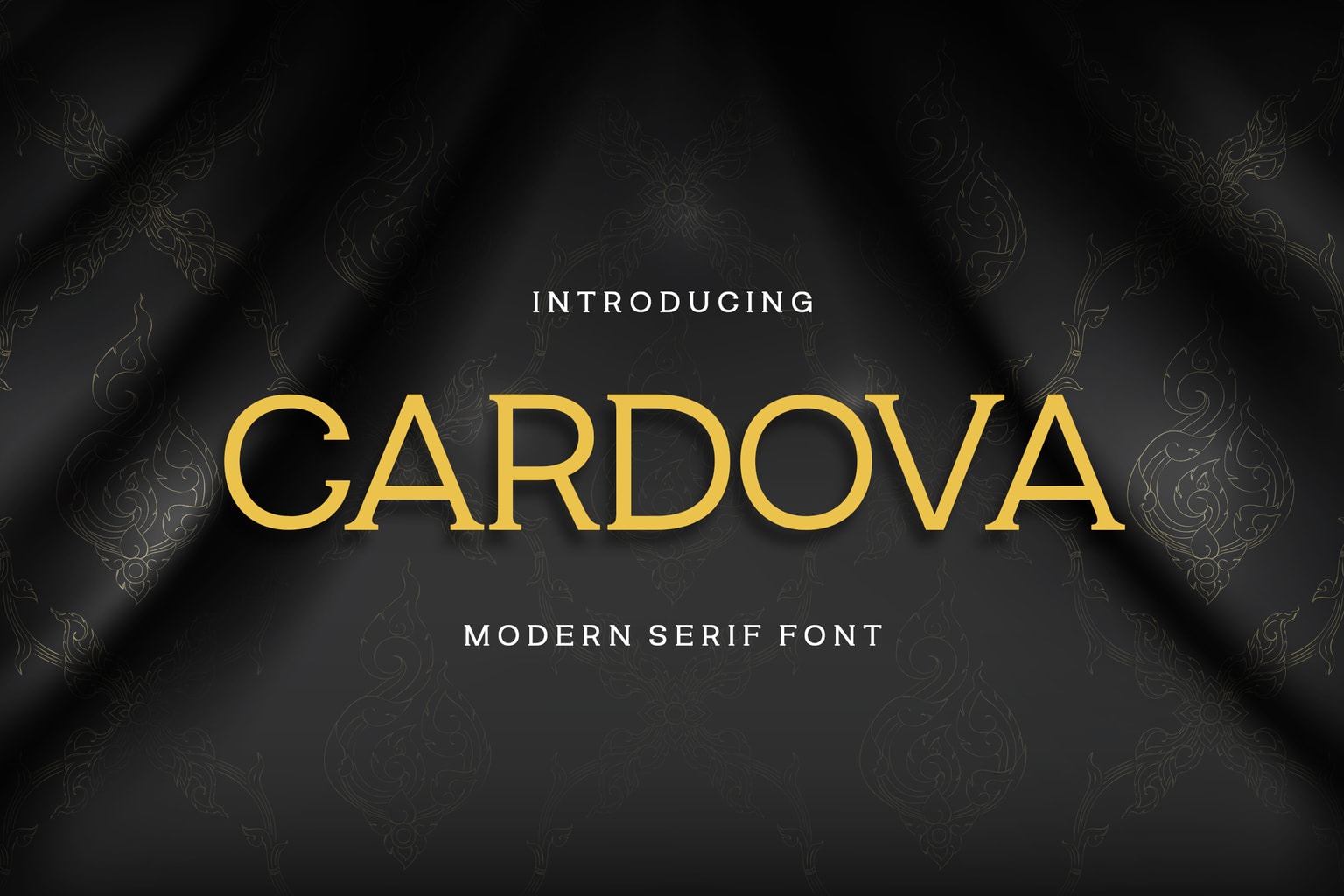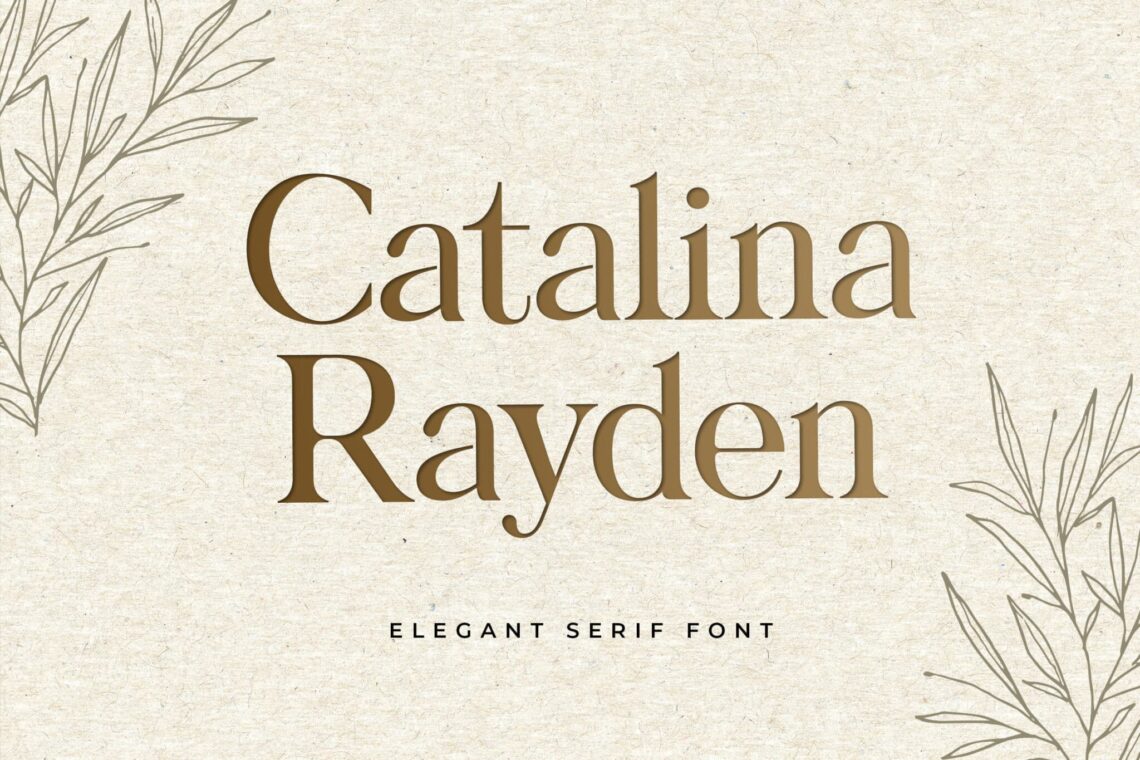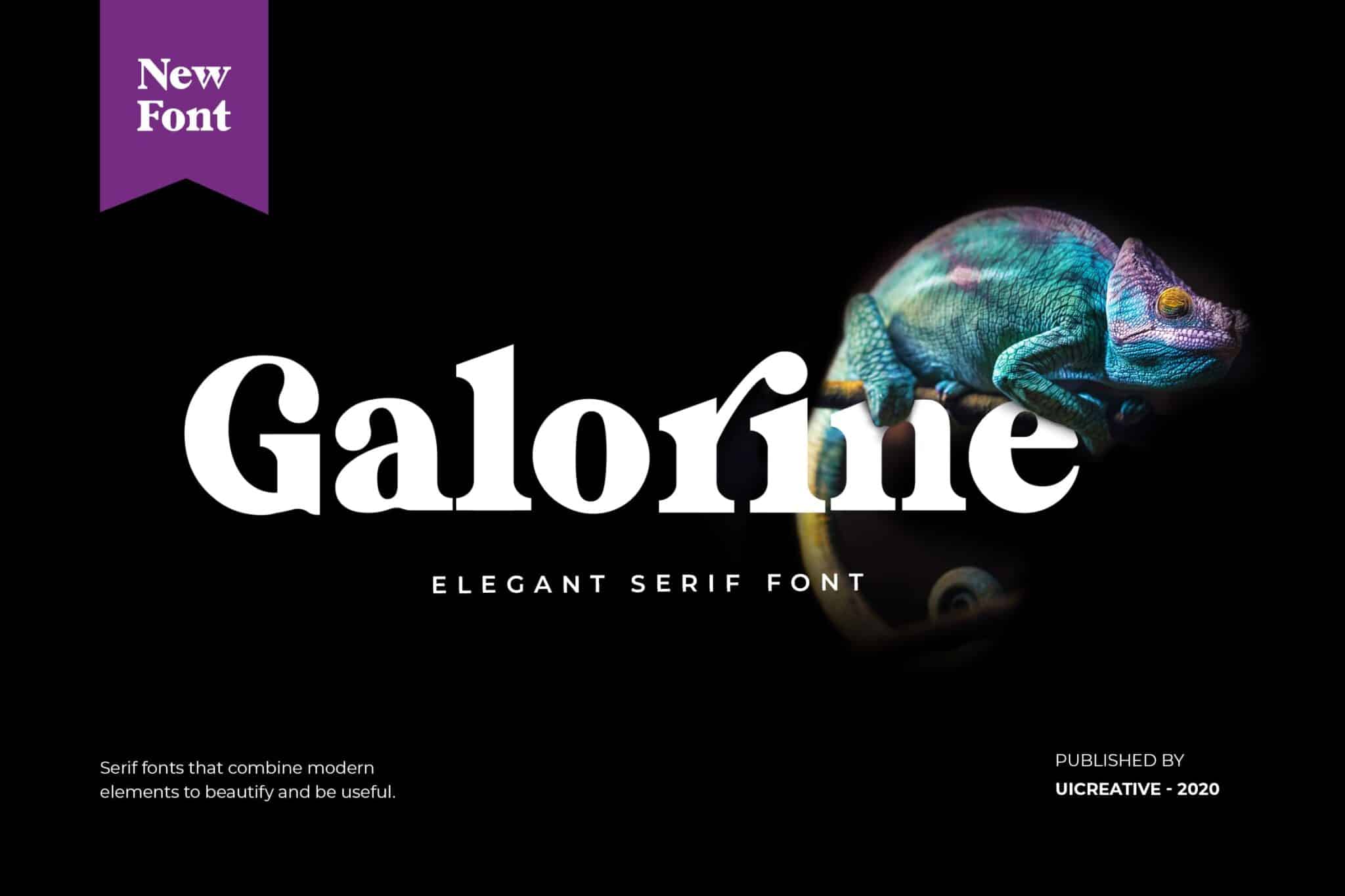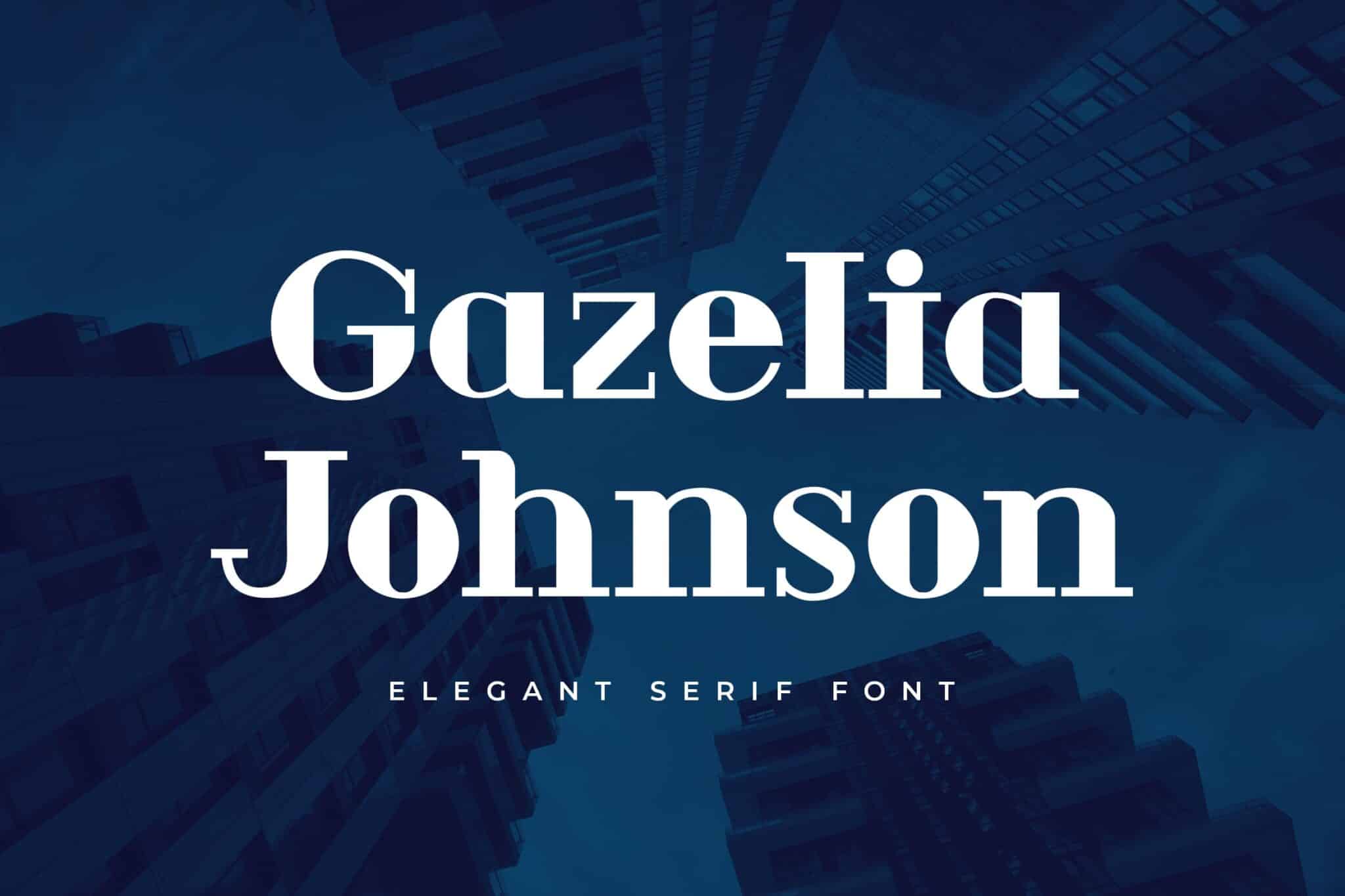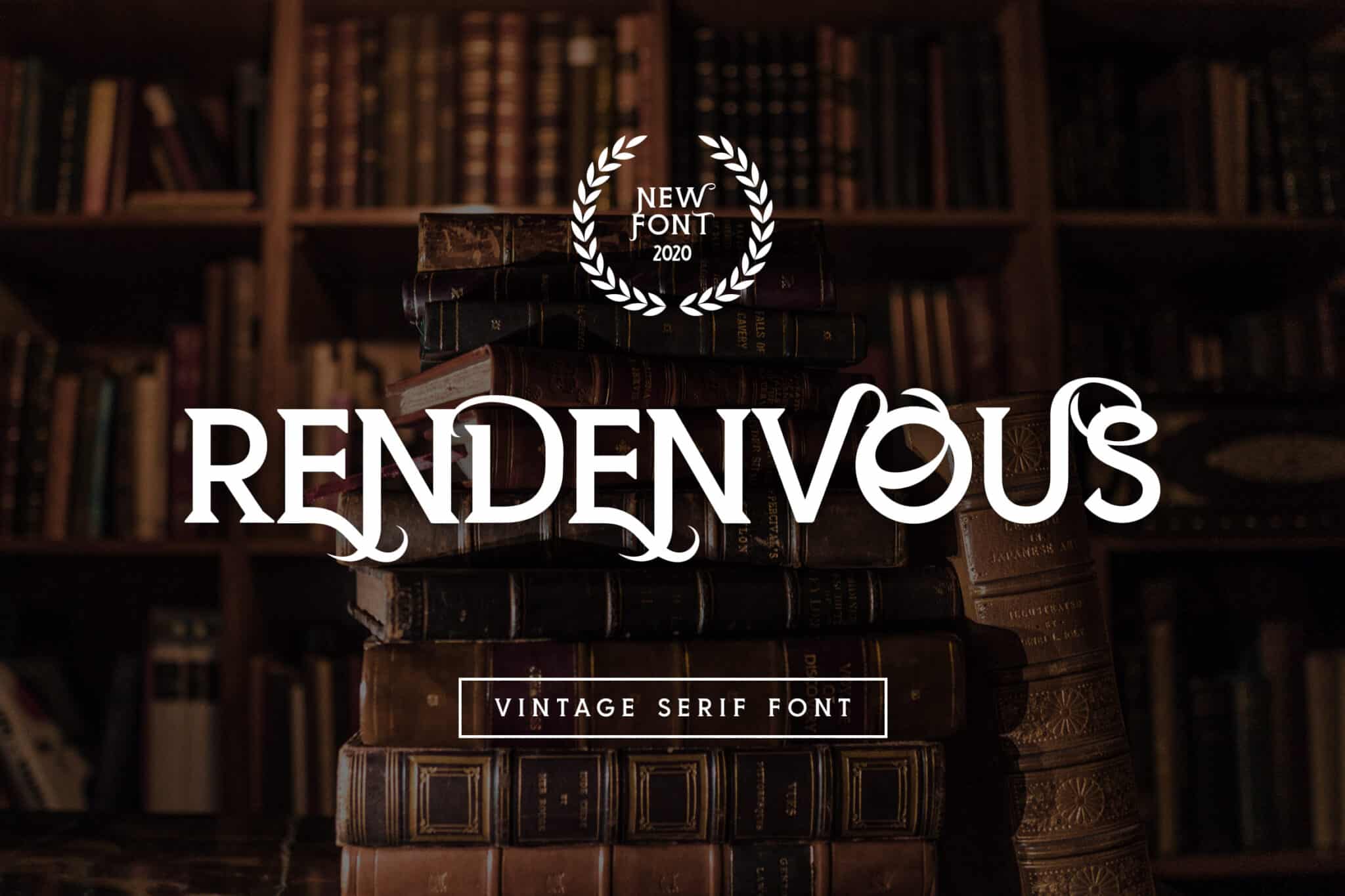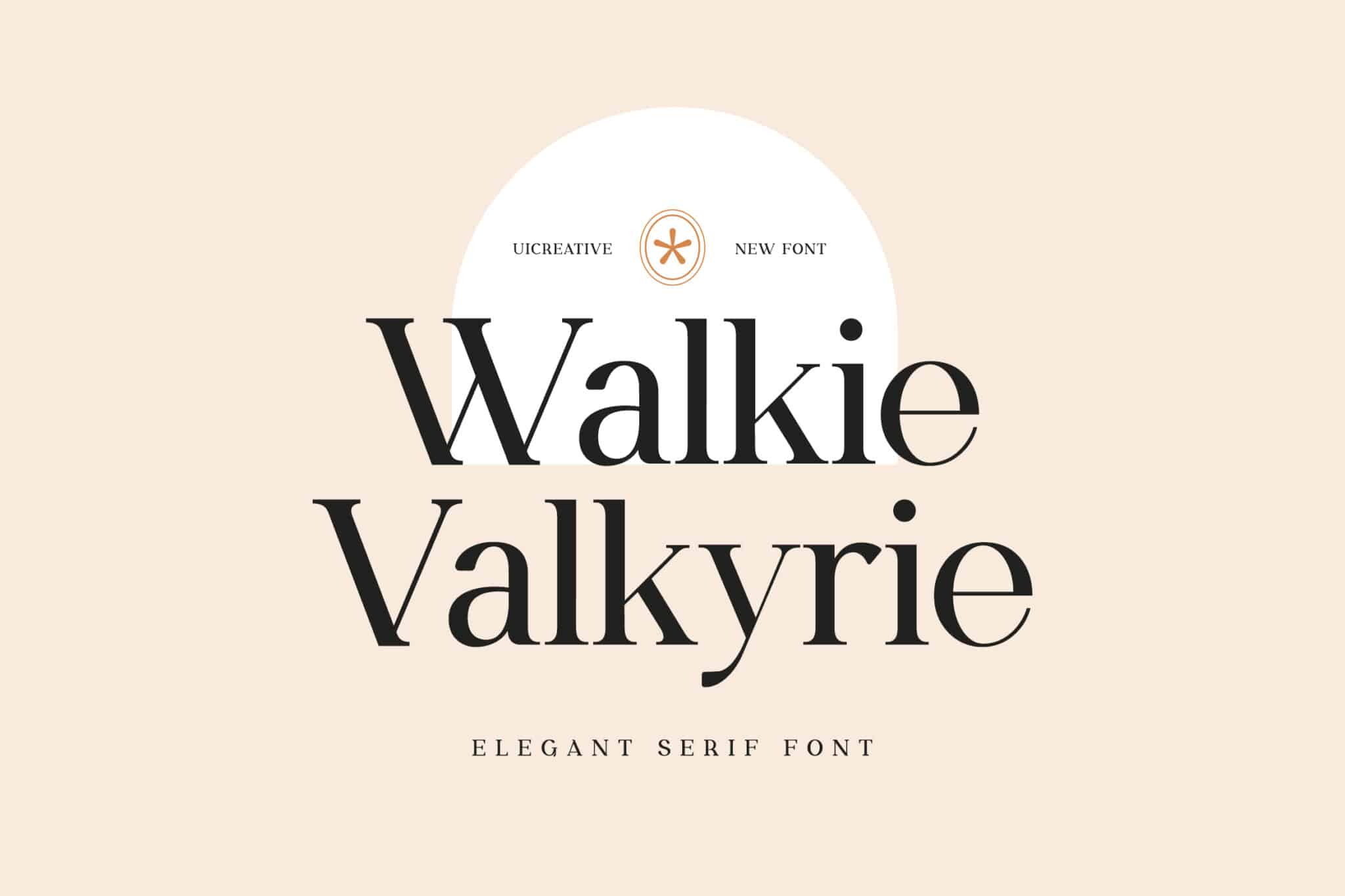
10 Best Modern Serif Font For You
It is time to investigate a selection of the most elegant and modern serif font available. The use of serif typefaces is recommended for printed books, complex typography, and the creation of a more official appearance. These popular serif fonts stand out from the rest of the pack.
We have compiled collections of the top modern serif font so that you may get started using them in your work right away. You’ll be astounded by how much of a difference they may make to your design job when contrasted to the more generic system fonts that are employed far too frequently.
10 Modern Serif Font Examples
If you have a question about what is a modern san serif font, after you look at these examples, you will know the answer! Here are our 10 collections of modern serif font you can use:
1. Lemonida Modern Serif Font
The sophisticated appearance of the Lemonida font family, which belongs to the modern serif font category, helps it stand out from the crowd. Thanks to the close spacing between the characters and the different weight options, you can utilize this font bundle to create a wide variety of unique print and digital designs.
2. Royal Augustine Serif Font
This modern serif font is perfect for creating high-end fashion and luxury brand logos due to its classic and understated style. Typical alphabetic and non-alphabetic characters, as well as punctuation marks, are all there.
3. Marfanco Serif Display Font
It is highly recommended that you look into the Marfanco Serif Display Font if you search for a contemporary design reminiscent of the past. It is a modern serif font with an industrial look, and using it will help your work stand out and establish you as a competent designer in the eyes of your coworkers and clients.
4. Catalina Rayden Serif Display Font
This is an excellent font for you if you seek a versatile serif font that you can use to produce anything from inventive logos to exquisite business cards. If you are looking for a font like this, you are in the right place. The Catalina Rayden Serif Display Font is a modern serif font that has been designed to have a look that is both sleek and attractive.
5. Galorine Serif Font
Make imaginative heads and titles for your projects with the help of this beautiful modern serif type font that is both thick and bold. It lends itself particularly well to creating header titles for websites, poster titles, and even contemporary logos.
6. Walkie Valkyrie Serif Font Family
This classy modern serif font family, namely Walkie Valkyrie Serif, features attractive letters that have been cleanly carved. It is ideal for creating packaging designs for high-end items and premium businesses. In addition, for use in business logos and badges, social media posts, website headers, and many other applications.
7. Rendenvous Serif Display Font
Yet another modern serif font, Rendenvous Serif Display Font, was designed for use in premium branding projects. This versatile font can benefit from logos, business cards, letterhead, and more.
8. Gazelia Johnson Serif Display Font
The character style of this display font exudes a certain degree of professionalism. It is consistent with the typeface’s name. Its amazing appearance will work wonderfully with upscale and more laid-back design endeavors. Also, it such as the creation of greeting cards and even designs for T-shirts.
9. Nandia Modern Serif Font
This font namely Nandia is a simple modern sans serif font for text that is perfect for producing more lifestyle-oriented and calm designs. The typeface comes with a fashionable and appealing design. This font makes it an excellent choice for creating designs for T-shirts, social media platforms, and even logos.
10. Cardova Modern Serif Font
The Cardova Modern Serif Font is a squeaky-clean luxury typeface with a very sophisticated lettering design. This typeface is perfect for producing logos and labels for contemporary and high-end firms because of its airy and open layout. It makes it an excellent choice.
What font pairs well with a modern sans serif?
Using separate typefaces that belong to the same typeface family is the easiest and most foolproof technique to ensure that a font pairing works well.